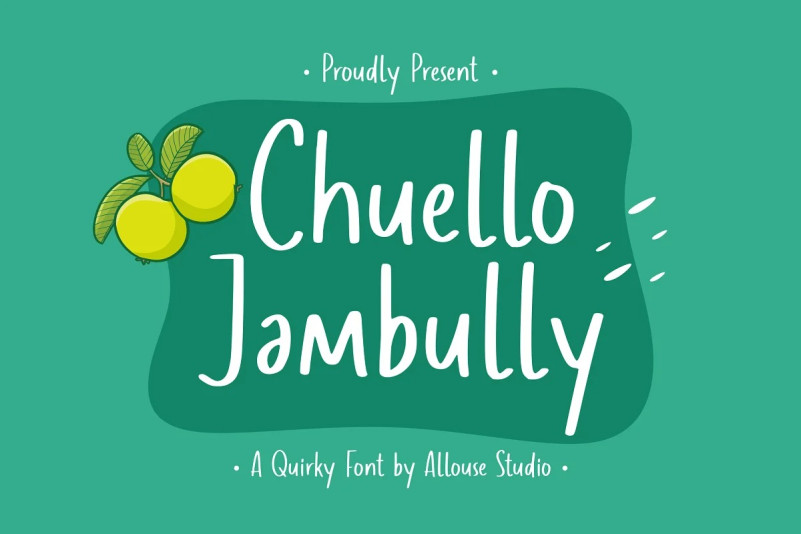
Chuello Jambully Font
Proudly Presenting, Chuello Jambully A Quirky Font.
Chuello Jambully is perfect for any titles, logo, product packaging, branding project, megazine, social media, wedding, or just used to express words above the background.